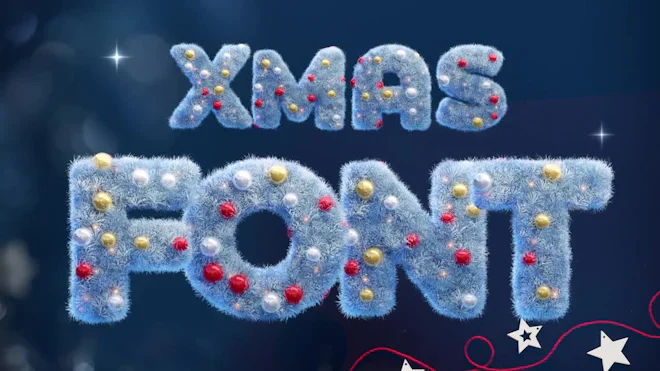
This stock motion graphics video pack includes 36 different clips of 3D icy Xmas upper-case typefaces on a transparent alpha channel. Pack includes 26 letters and 10 numbers.